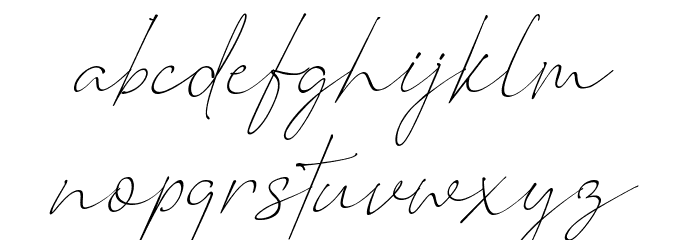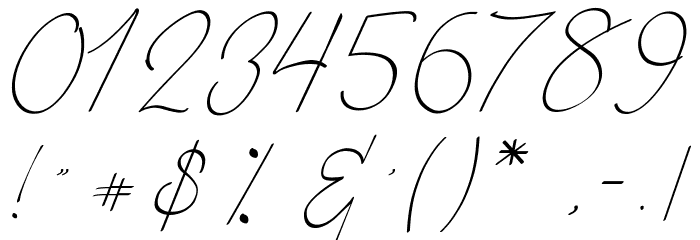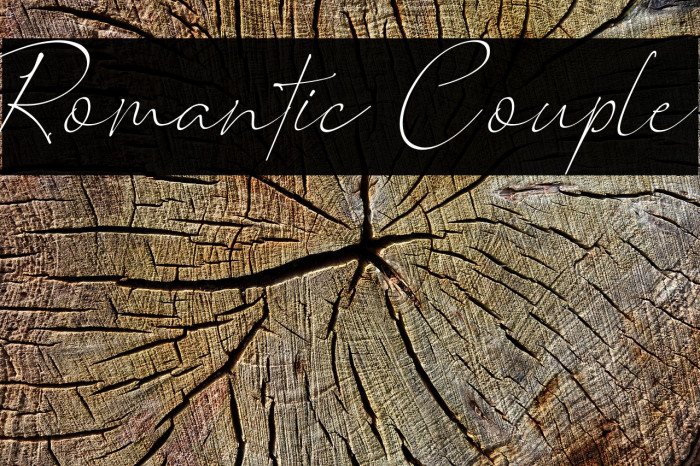
Romantic Couple Font
This elegant script font features a flowing, handwritten style with a delicate and romantic touch. The letters are gracefully connected, giving a sense of fluidity and movement. The uppercase letters are slightly more elaborate, with gentle curves and loops that add a sophisticated flair. The lowercase letters maintain a consistent slant, enhancing the overall harmony of the text. Numbers and special characters are designed to complement the alphabet, maintaining the same elegant style. This font is perfect for adding a personal and artistic touch to any project.
A graceful, handwritten script font with a romantic and elegant style.
- Proposed Projects: Ideal for wedding invitations, greeting cards, personal branding, and romantic-themed designs.
- Overall Style: Romantic
- Use Case: Logos, Invitations, Personal Branding